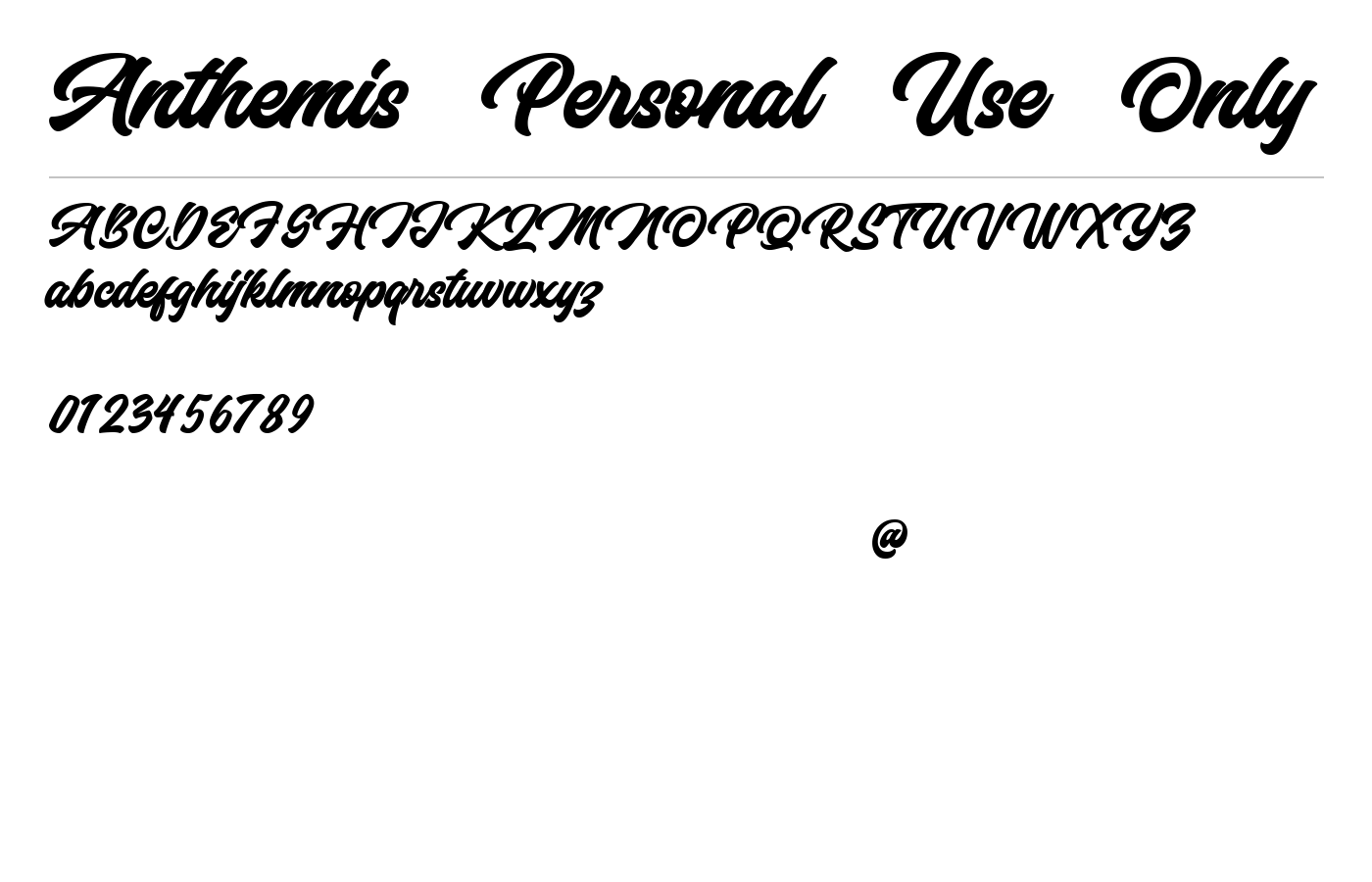
Anthemis Personal Use Only is a bold, elegant script font with smooth, flowing strokes and a lively, handcrafted feel. Its rounded letterforms and moderate contrast make it perfect for stylish branding, invitations, and creative headlines where a warm, personal touch is desired. This font works well to convey sophistication with a friendly, approachable vibe.
Anthemis Personal Use Only Font